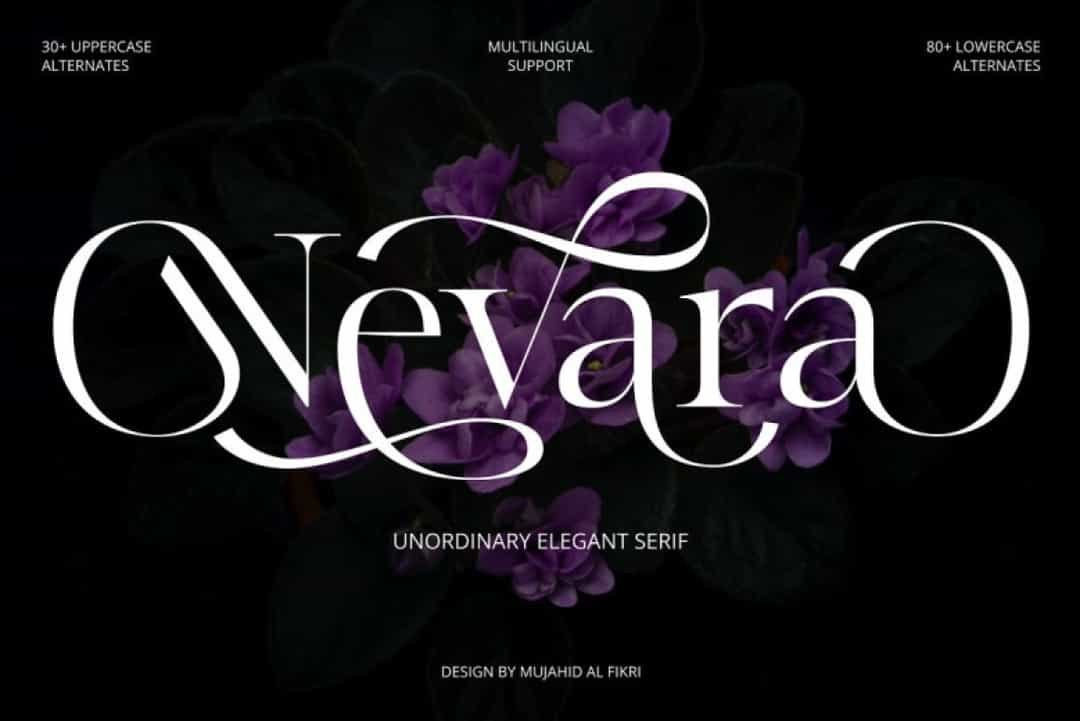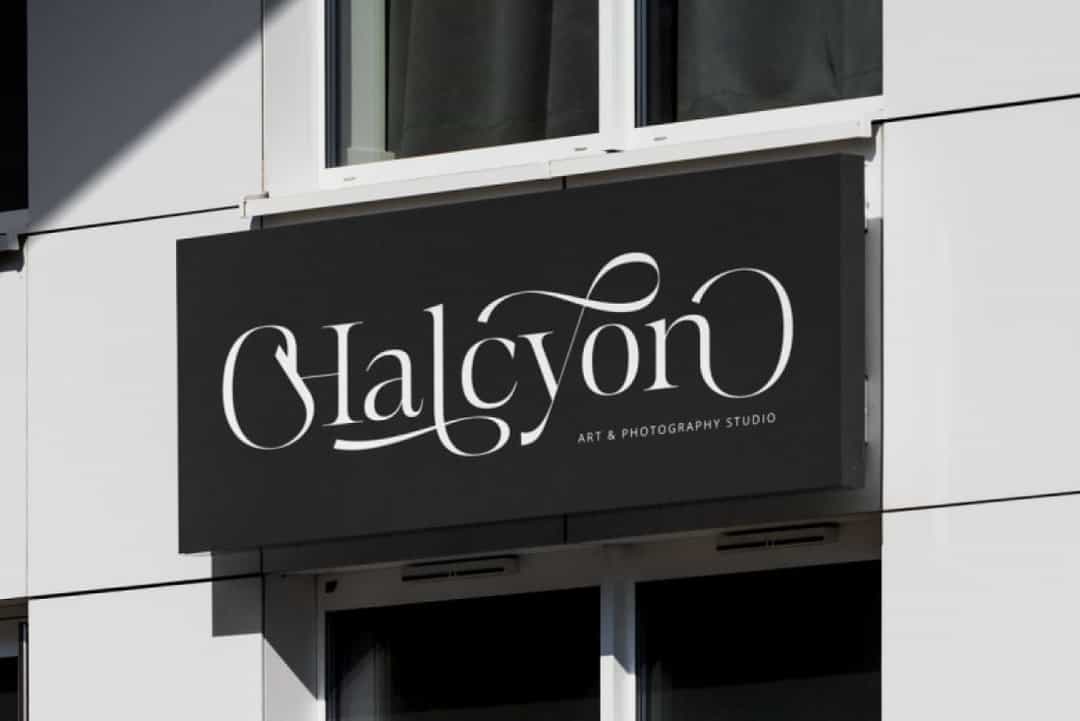
Nevara is a sophisticated serif typeface that combines classic elegance with unwavering solidity, achieving the ideal combination between subtle embellishments and straightforward solidity. Drawing inspiration from Fractur Calligraphy’s small section design, Nevara offers over 30 Uppercase alternatives as well as over 80 Lowercase alternative fonts for customization purposes and distinctive typographic designs. Furthermore, multilingual support is provided along with options for adding alternates using numbers following letters or through its private Use Area; making this font the ideal solution for projects that demand both design and functionality!